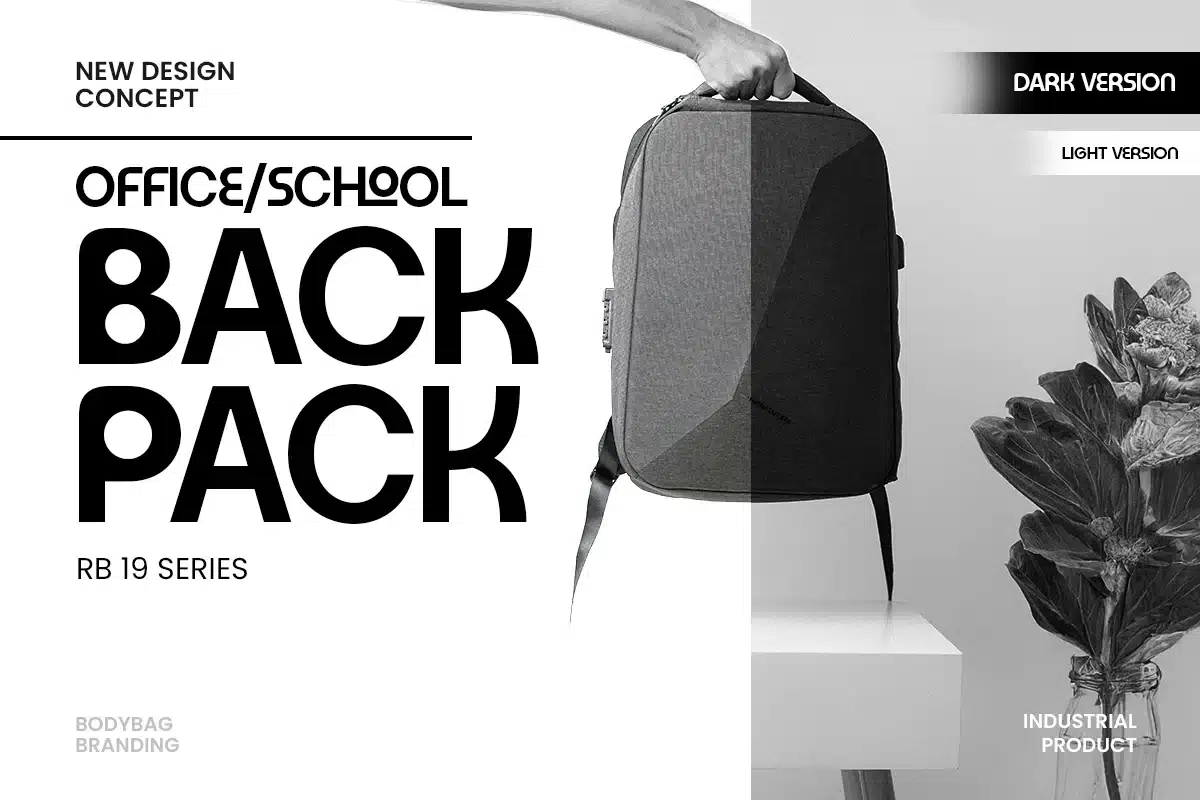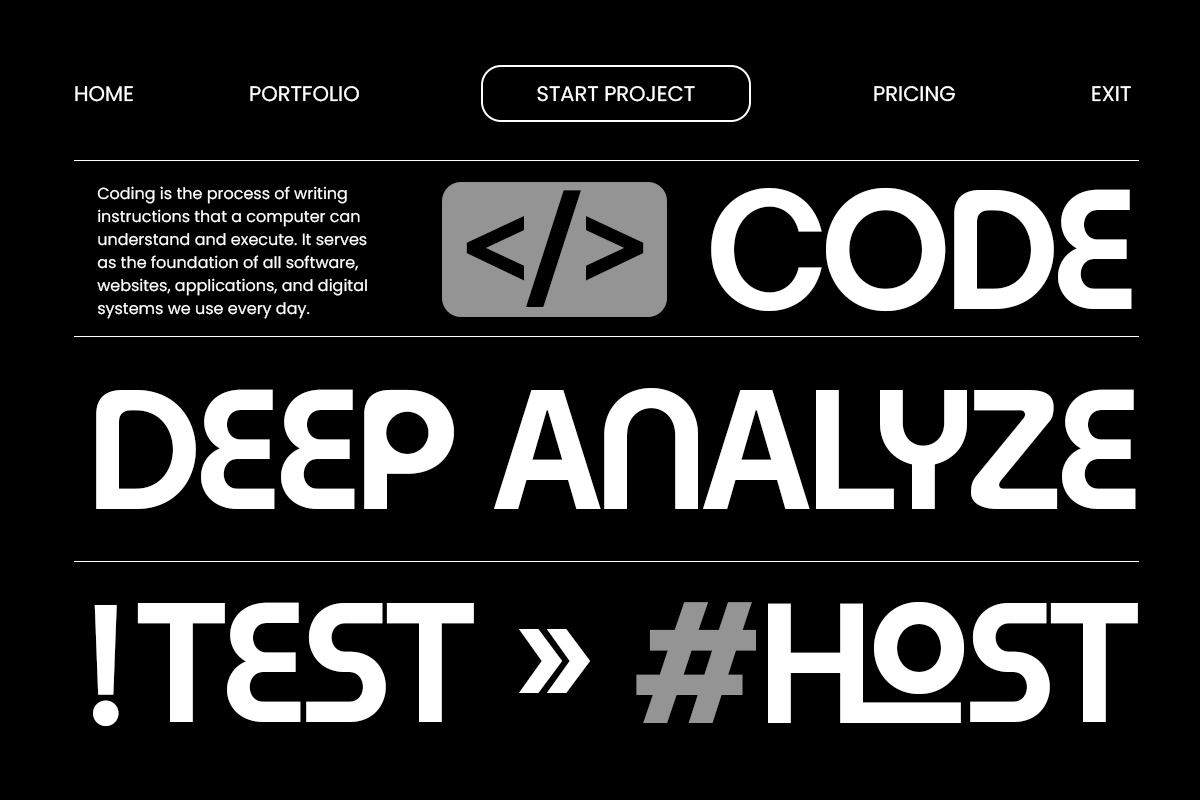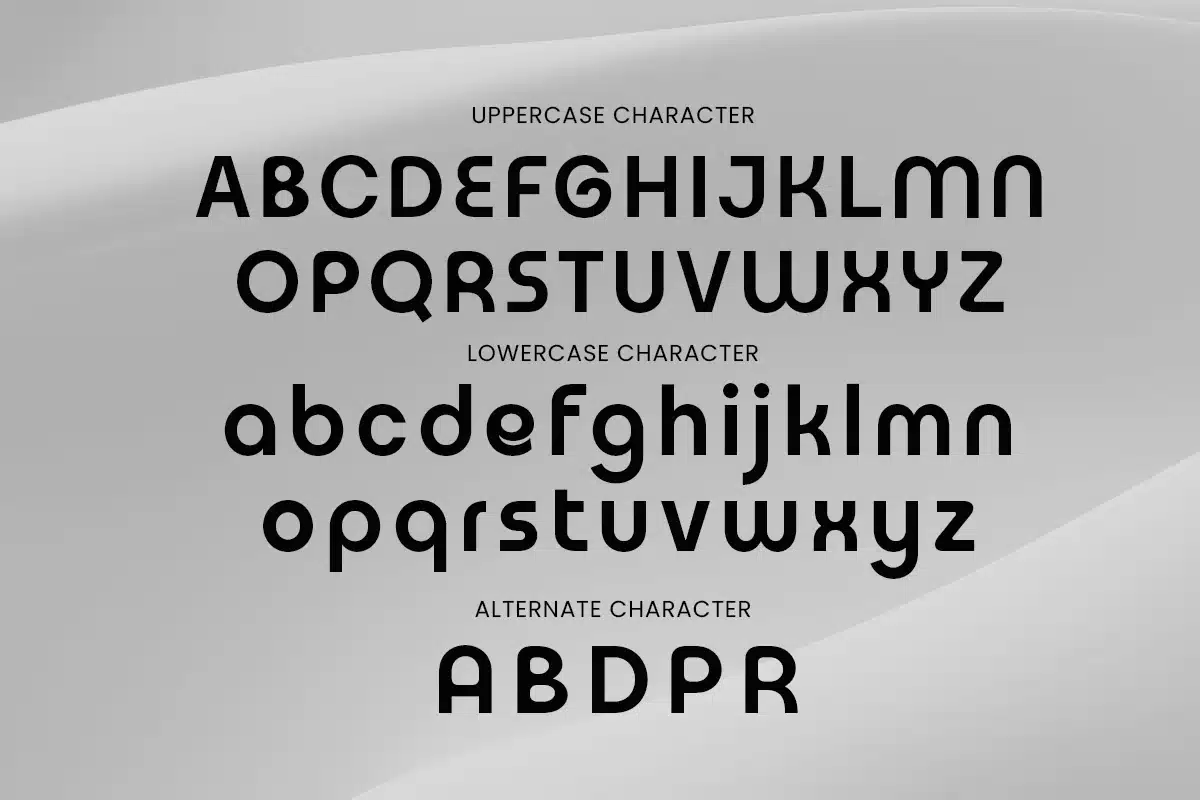
Bored – Geometric Logo Font
BORED is a geometric logo font designed to express modern simplicity and balanced visual structure. With clean lines and precise proportions, this typeface is perfect for logos, product packaging, editorial layouts, and creative branding projects that value minimalism and clarity.
Inspired by modernist design principles, BORED delivers a sleek and contemporary look suitable for both corporate and creative fields. It works beautifully in digital platforms and print materials alike — ideal for technology startups, lifestyle brands, and design studios seeking a timeless, refined logo typeface.
Its geometric form ensures versatility while maintaining a distinctive personality, making BORED a perfect choice for designers aiming to create visual identities that feel confident, stylish, and professional.
BORED – Geometric Logo Font Features
- Clean geometric structure with minimal design style
- Perfect for logos, branding, packaging, and editorial layouts
- Ideal for corporate, digital, and creative use
- Highly legible and balanced for both print and web applications
- OpenType features for enhanced design control
Make your brand stand out with BORED – the ultimate geometric logo font for minimalist, modern, and creative design. ✨